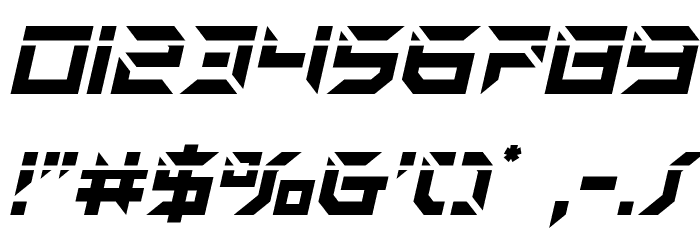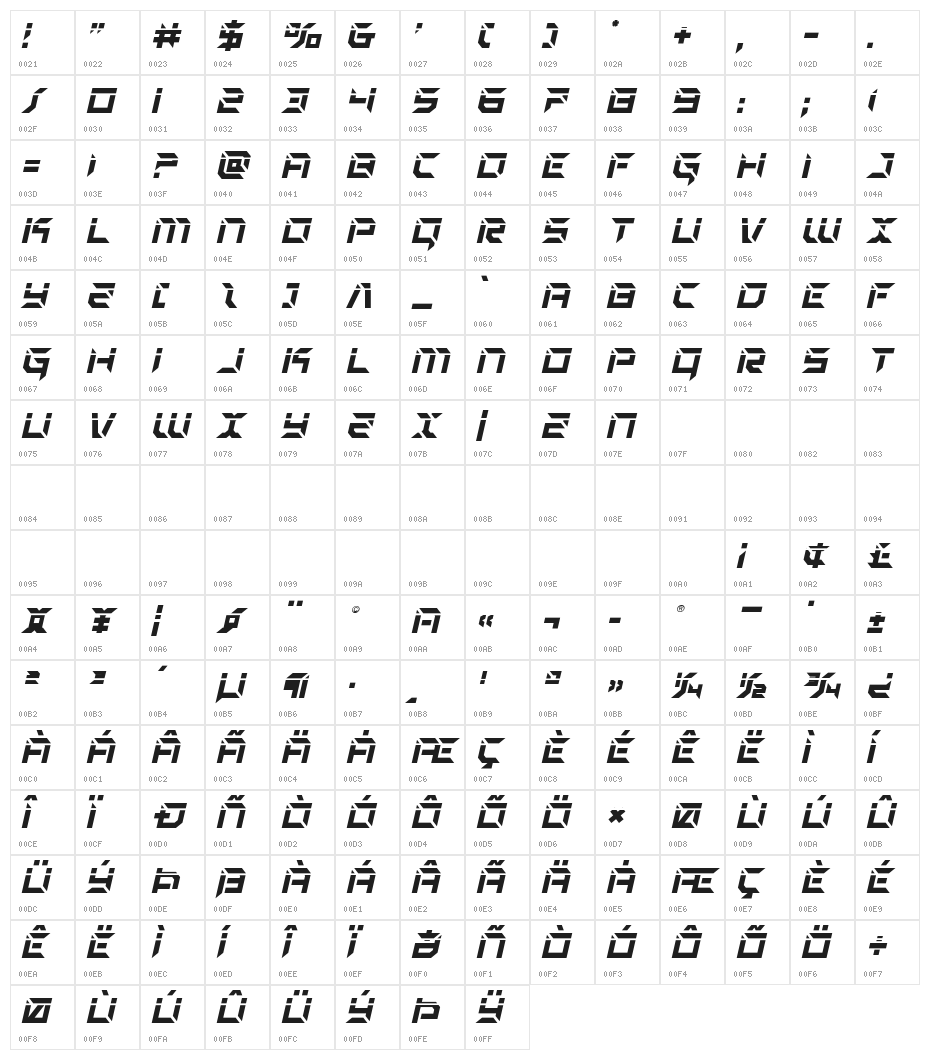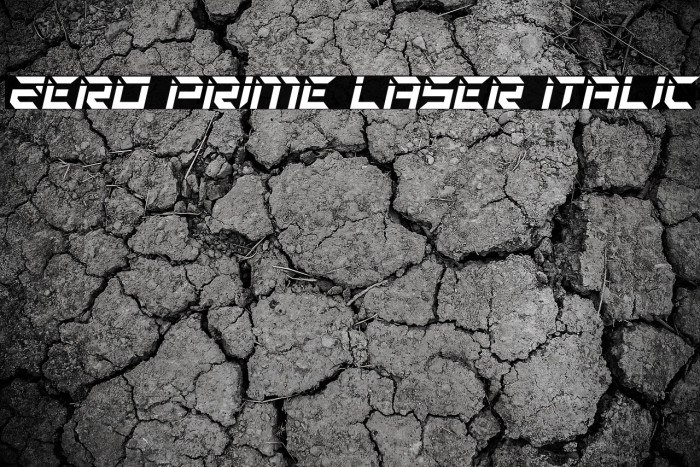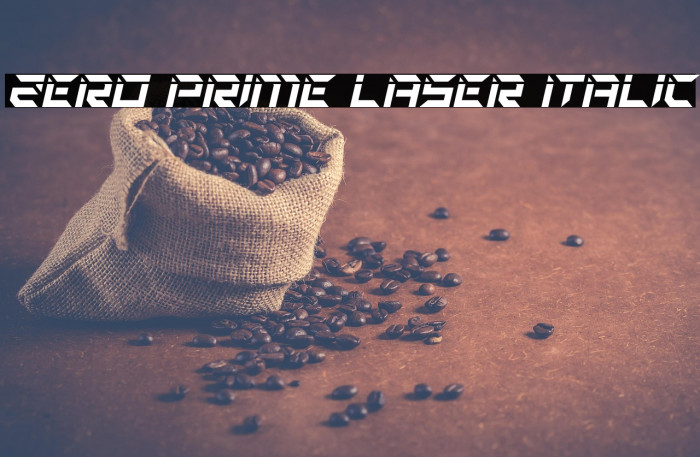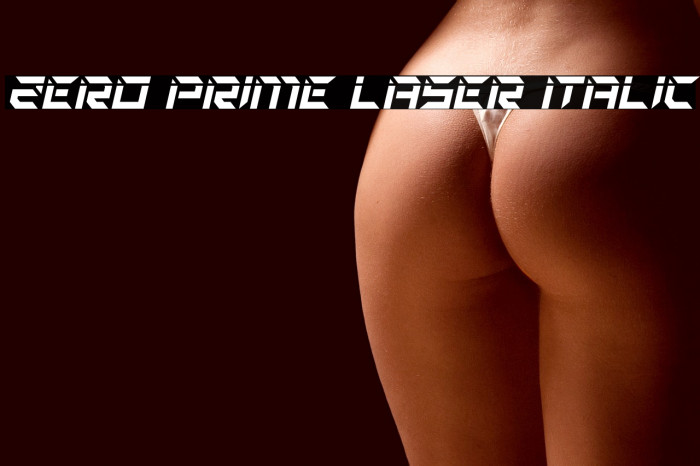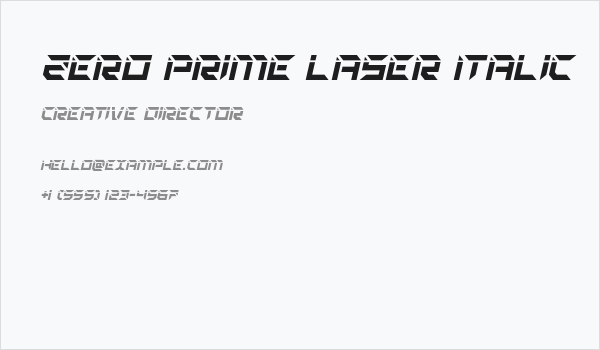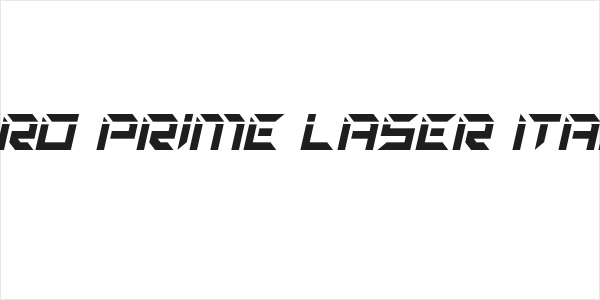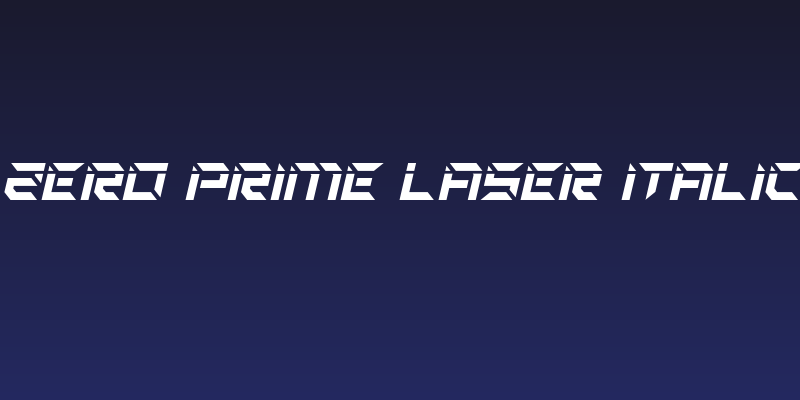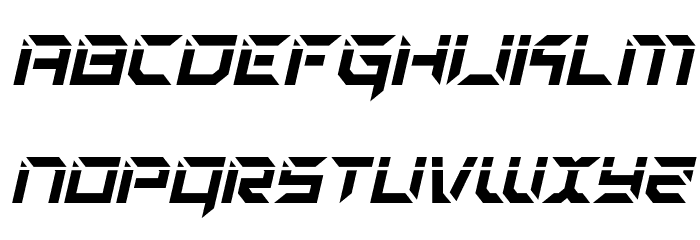
Zero Prime Laser Italic Font
Zero Prime Laser Italic Description
This font features a futuristic and angular design, characterized by sharp edges and geometric shapes. The letters are constructed with a bold, italicized style, giving a sense of motion and speed. The uppercase and lowercase letters maintain a consistent aesthetic, with a unique, tech-inspired appearance. The numbers and special characters follow the same design principles, ensuring uniformity across all elements. This font's distinct, modern look makes it suitable for projects that require a cutting-edge, digital feel.
| Proposed Projects | Ideal for tech branding, sci-fi movie posters, video game titles, and digital artwork. |